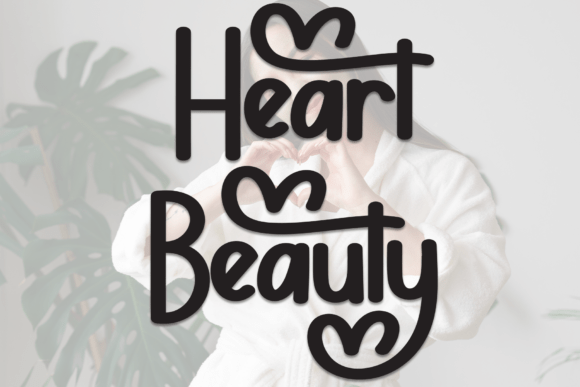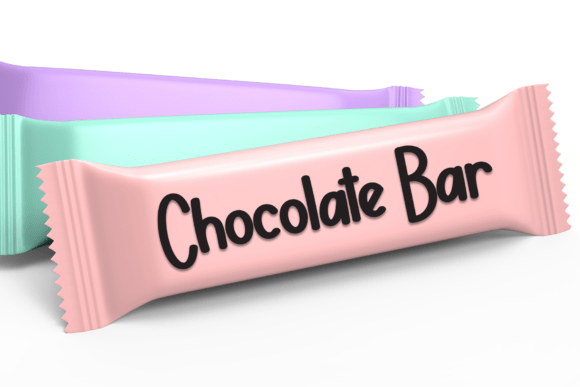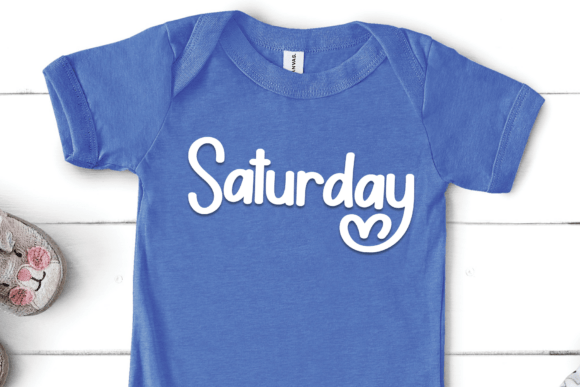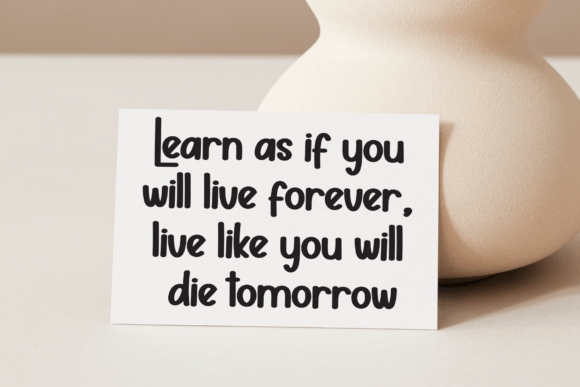
Heart Beauty Font
About the Heart Beauty Font
Let us introduce you to Heart Beauty Font, where timeless design meets modern craftsmanship. Heart Beauty is a casual and neat display font that radiates a fresh, friendly vibe. With clean lines and a relaxed structure, it’s perfect for packaging, posters, and social media graphics. The approachable design adds charm and clarity to projects while maintaining a polished appearance.
Heart Beauty’s friendly, casual nature makes it ideal for projects requiring approachability and charm; think branding for cafes, children’s products, or lifestyle blogs. It excels in headlines, short taglines, and social media posts where readability at larger sizes is key. However, its relaxed structure isn’t suited to body text or lengthy paragraphs. Avoid using it for UI elements or situations requiring high levels of legibility at smaller sizes.
Pairing Heart Beauty with a clean sans-serif like Open Sans for body copy creates a balanced and harmonious feel. For a more playful approach, consider pairing it with a rounded geometric sans-serif such as Lato. A classic serif like Garamond would add sophistication for projects needing a touch of elegance.
The font’s overall personality is undeniably cheerful and approachable, conveying a sense of warmth and optimism. This makes it particularly well-suited to brands aiming for a friendly, approachable image.
Heart Beauty Font Usage Examples
Heart Beauty Font Example